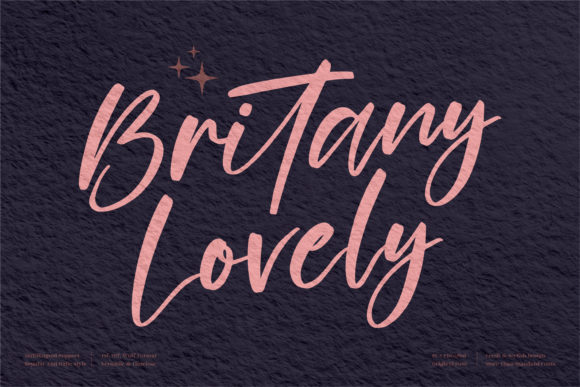
I still remember the frustration of working on a project, pouring my heart and soul into every detail, only to hit a roadblock: finding the perfect font. My client wanted something elegant, something classy, something that would make their brand stand out. I scoured the internet, tried out countless fonts, but none seemed to fit the bill. That was until I stumbled upon **Britany Lovely Font**.
A First Impression: What Makes Britany Lovely Special
Britany Lovely is a gorgeous and delicate script font that exudes elegance and class. This font was particularly crafted for those who need a beautiful and refreshing look to their designs. Whether you’re a designer, crafter, or creative hobbyist, Britany Lovely is sure to impress.
- ✨ Elegant and delicate script style that’s perfect for high-end designs
- 💫 Highly versatile: works well for logos, branding, invitations, and more
- 👍 Well-suited for digital and print designs
- ⚠️ Some users may find the font a bit too delicate for certain design applications
- 🤔 Limited availability of certain characters or symbols (but PUA encoding makes up for it)
The Story Behind Britany Lovely: Designer Inspiration
Britany Lovely was crafted with love and care by a talented font designer who wanted to create a font that would inspire creativity and elegance. With a passion for typography and design, the designer poured their heart and soul into crafting a font that would exceed expectations.